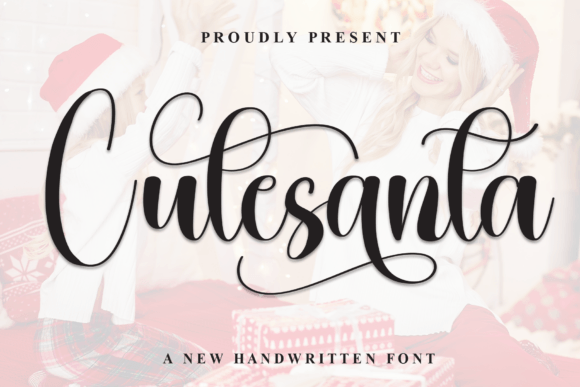
Cute Santa Font: The Perfect Blend of Whimsy and Elegance
As a designer, have you ever found yourself staring at a blank canvas, waiting for inspiration to strike? The moment when everything comes together, and your creative vision starts to take shape – that’s what makes designing truly magical. For me, it’s often a font that sparks the idea, and when I stumbled upon the Cutesanta Font, I knew I had to share it with the world.
This delicate and elegant handwritten font is more than just a pretty face; it’s a masterpiece of balance and style. With its incredibly versatile design, the Cutesanta Font is perfect for creating spectacular designs that will leave a lasting impression. Whether you’re a seasoned designer or just starting out, this font is a valuable addition to any toolkit.
Cutesanta Font Key Features
- Font Family: Cutesanta Font is a unique, hand-drawn font family designed to evoke a sense of playfulness and whimsy.
- Character Count: The Cutesanta Font family consists of over 300 characters, including uppercase and lowercase letters, numbers, and punctuation marks.
- Unique Characteristics: Cutesanta Font features a distinctive, hand-drawn style with subtle imperfections and irregularities that give it a charming, human touch.
Cutesanta Font Review
I recently had the chance to play around with the Cutesanta font, and I have to say, it’s a sweet addition to any project. ✨ The font’s unique blend of modern and vintage elements makes it perfect for creating a whimsical and playful atmosphere.
Here are some things that work well with Cutesanta:
- Playful feel – The font’s cursive script and rounded edges give it a friendly and approachable vibe.
- Customization options – Cutesanta comes in a range of weights and styles, making it easy to adjust the look to fit your needs.
- Legibility – Despite its playful nature, the font is still easy to read, even at smaller sizes.
- Limited language support ⚠️ – Cutesanta may not be the best choice for projects that require a wide range of languages.
- Not ideal for serious or formal content ⚠️ – The font’s playful feel may not be suitable for projects that require a more professional tone.
Overall, I think Cutesanta is a great choice for designers looking to add a touch of whimsy to their projects. With its unique style and customization options, it’s a great addition to any font library.
The Cutesanta Font is ideal for use in children’s books, greeting cards, and other creative projects where a playful and whimsical font is required. It’s also suitable for use in branding and marketing materials where a unique and eye-catching font is needed.
Alternatives to Cutesanta Font
Cutesanta Font is a playful, handwritten font often used for children’s products, holiday themes, and whimsical designs. Here are some alternatives for designers:
Great Vibes is a modern, handwritten font with a touch of elegance. It’s ideal for creating a sense of sophistication and whimsy in designs like greeting cards, invitations, and branding for lifestyle or fashion brands.
Comparison: Great Vibes has a more refined and sophisticated feel compared to Cutesanta Font’s playful and childish vibe.
Pacifico is a beautiful, handwritten font with a relaxed and beachy feel. It’s perfect for designs related to travel, summer, or outdoor activities.